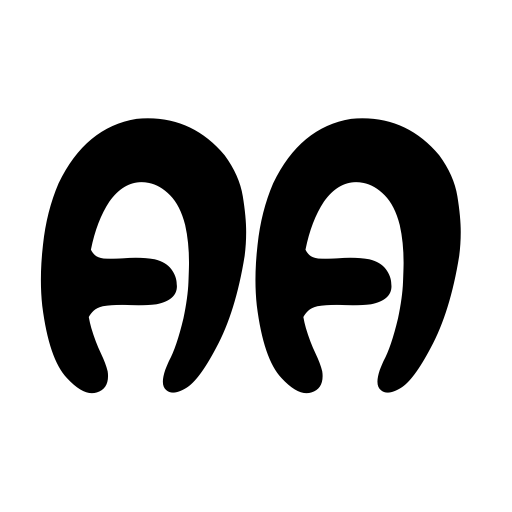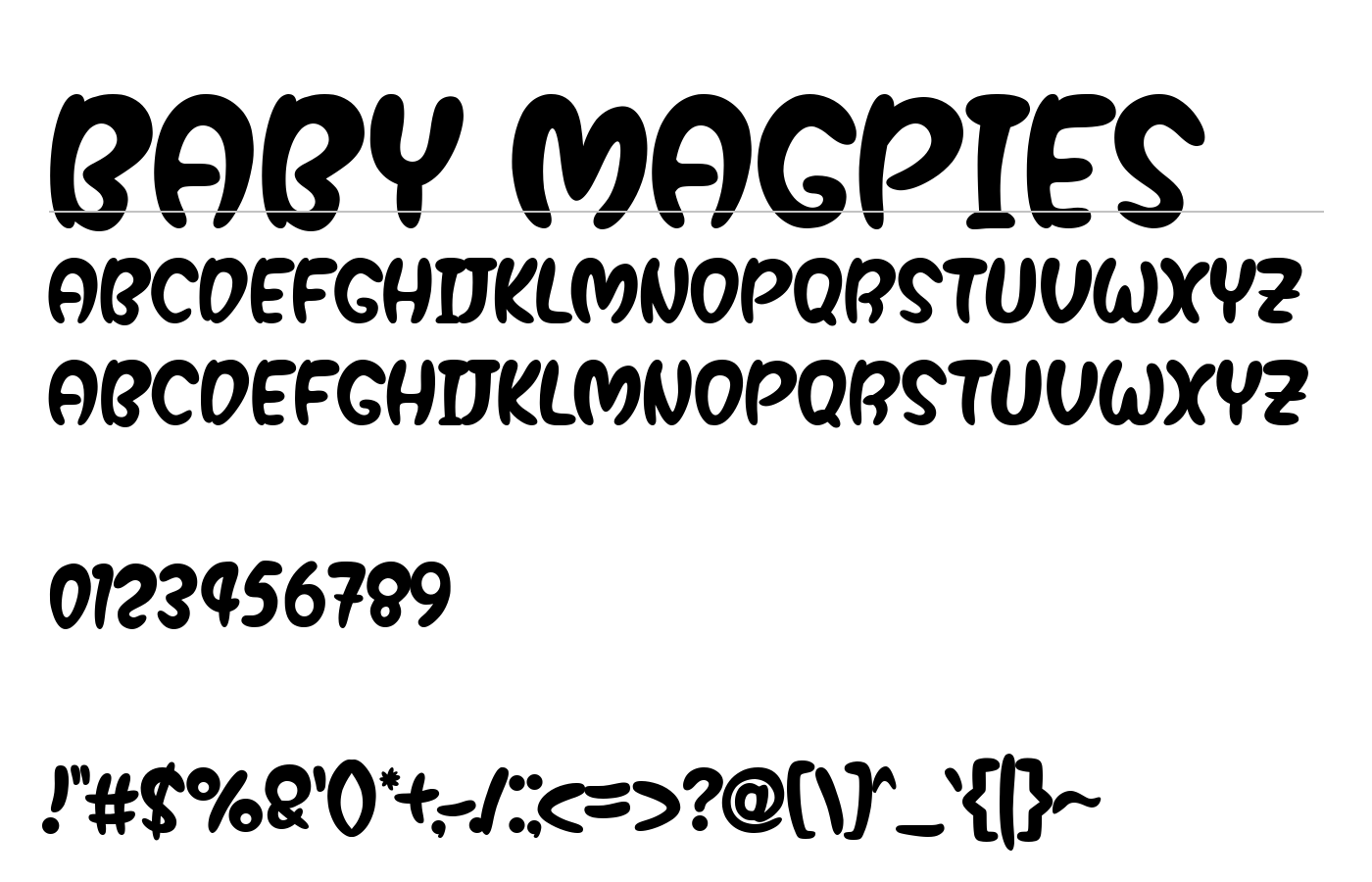
Baby Magpies is a playful and rounded sans serif font with a friendly, hand-drawn feel. Its bold weight, smooth curves, and unique letter shapes make it ideal for informal, fun designs such as children’s books, casual logos, and creative posters. This approachable typeface works well where a lively and cheerful tone is needed.
Baby Magpies Font
About Baby Magpies Font
| Designer | Sipanji, Memet, Rama |